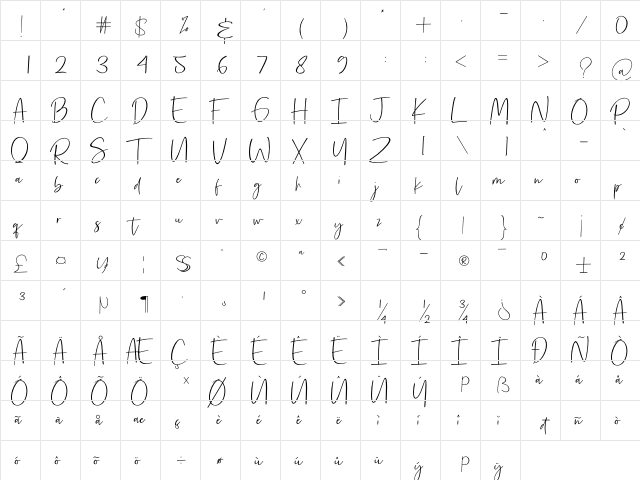
Precious Soul Regular
Design Context for Precious Soul Typeface
Precious Soul is a composed and adaptable typeface that performs quietly and consistently across a wide range of design contexts.
Pro Tip: Pair Precious Soul with a font of contrasting weight or personality to build a more expressive typographic hierarchy.